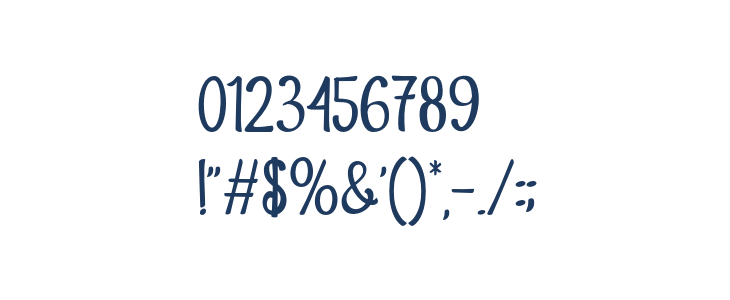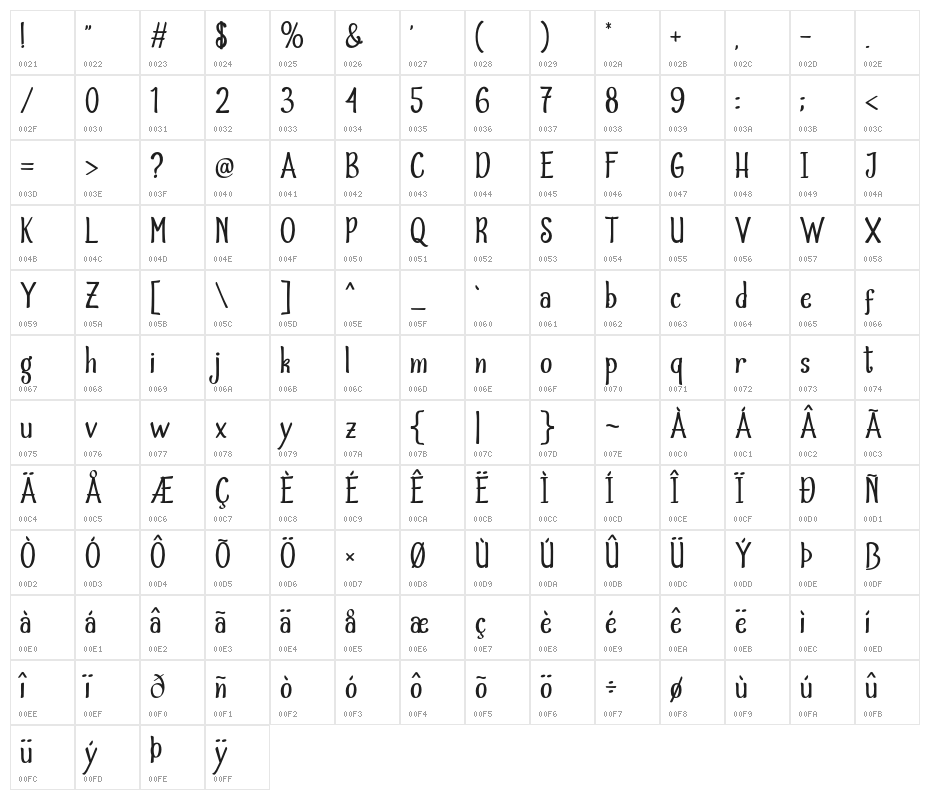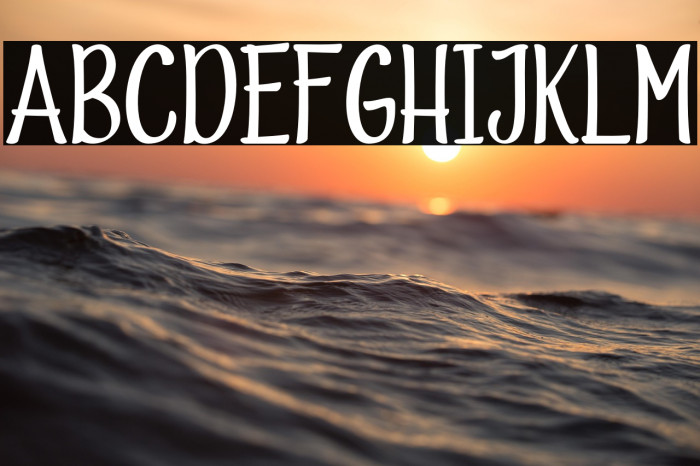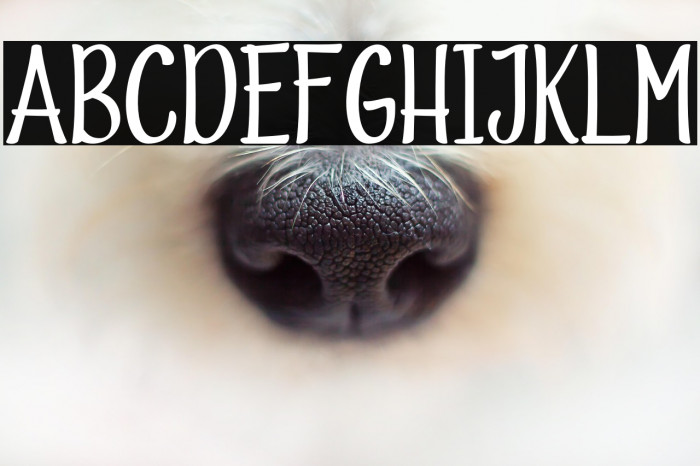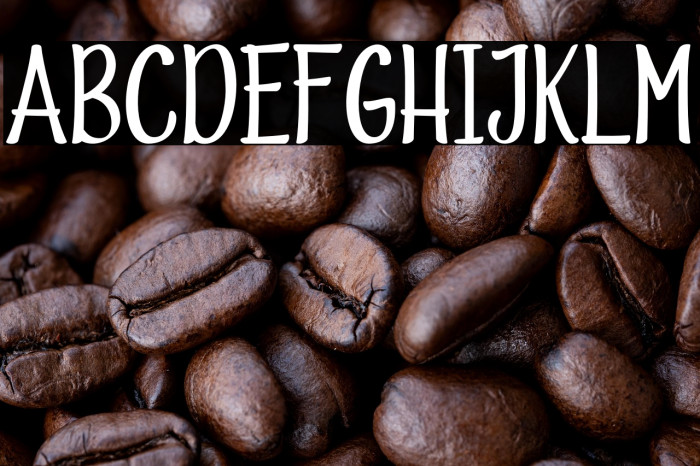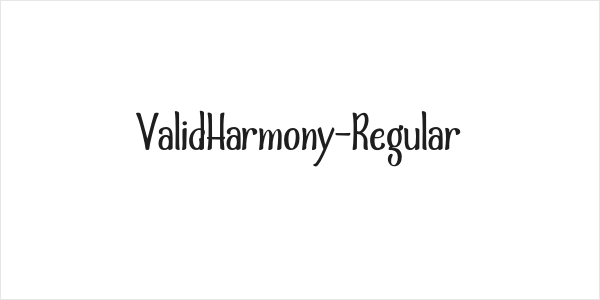
ValidHarmony-Regular Font
ValidHarmony-Regular Description
This font features a playful and whimsical design, characterized by its hand-drawn appearance. The letters have a slightly irregular shape, giving them a casual and friendly feel. The strokes are consistent in thickness, providing a balanced look. The uppercase letters are tall and narrow, while the lowercase letters maintain a similar style with a touch of flair. Numbers and special characters are crafted to match the overall aesthetic, making this font versatile for various creative projects. The font's unique style makes it suitable for designs that aim to convey a sense of fun and creativity.
| Proposed Projects | Ideal for children's books, greeting cards, playful branding, and creative posters. |